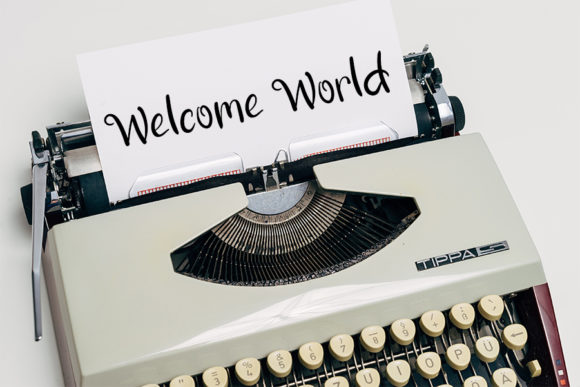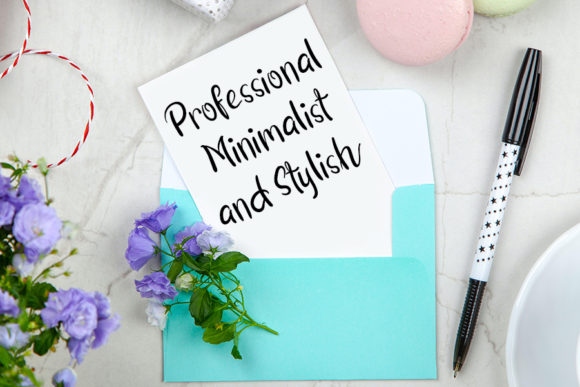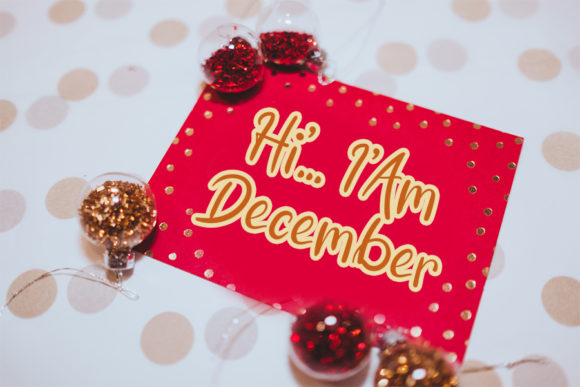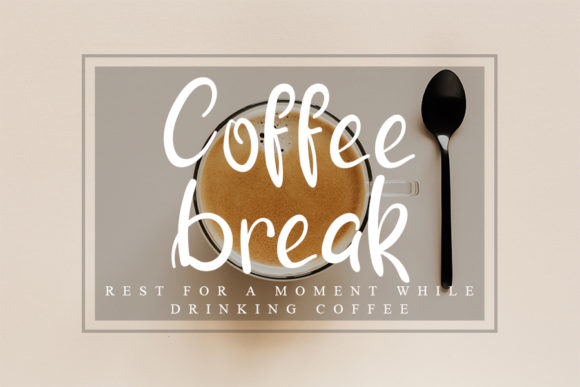
Smartwork Font
About Smartwork Font
Smartwork is a casual and original handwritten font. Flowing and neat lettered, this font is the best choice for whichever design idea you can think of! Let your imagination run free!